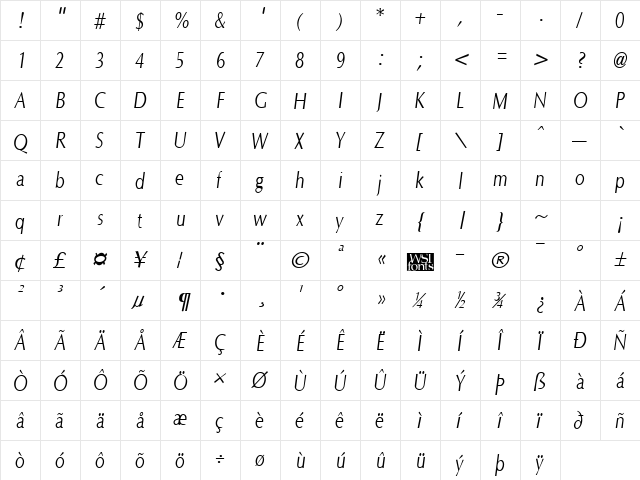
OptaneCompact Italic Font Preview
Design Context for OptaneCompact Typeface
OptaneCompact takes a measured approach to typography — its balanced proportions and neutral character make it a reliable workhorse for both digital and print work. The dynamic lean of this cut emphasises speed and emphasis in any layout. The condensed width makes it efficient for tight spaces without sacrificing legibility.
Pro Tip: Try OptaneCompact for annotation and caption copy alongside an upright companion — the contrast in angle creates a dynamic but ordered typographic system.